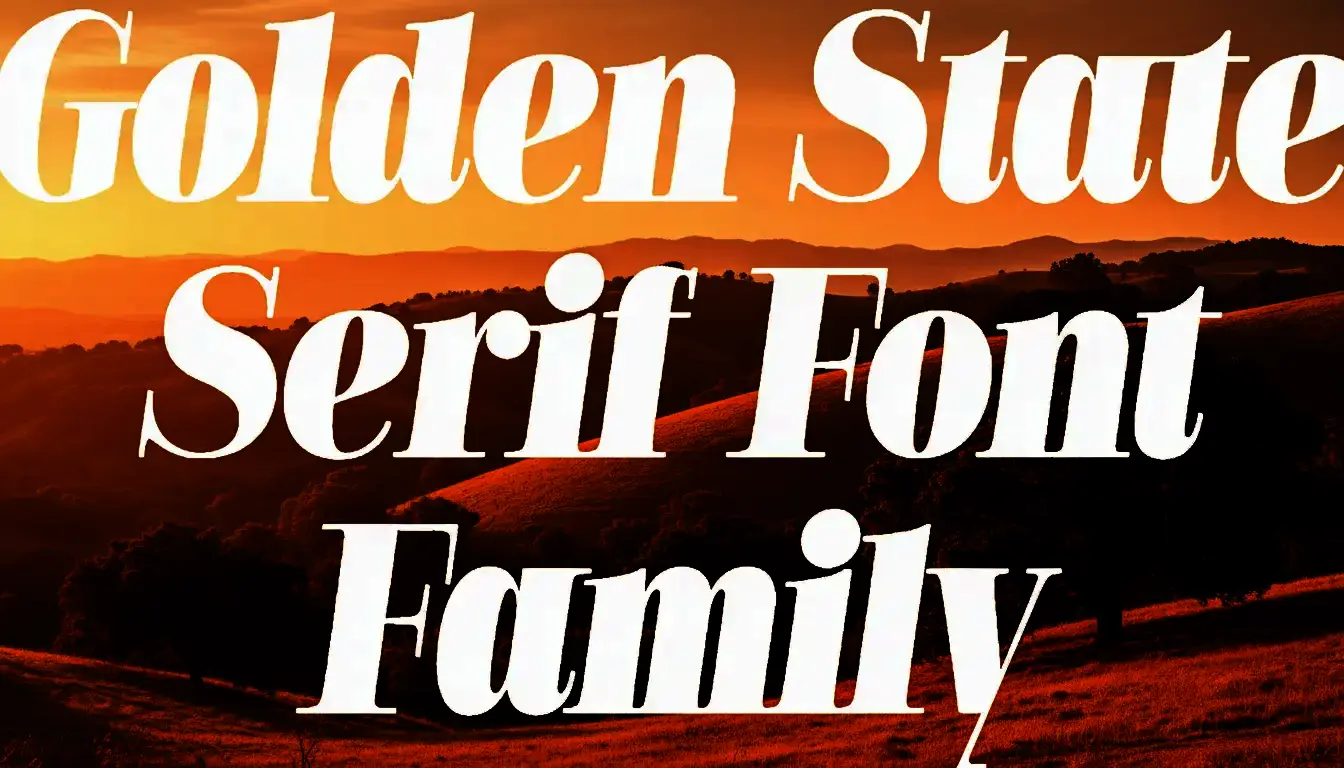
Golden State Serif Font Family
Golden State Serif is a sophisticated, highly customizable serif display and text font family designed by the renowned typographer Måns Grebäck and released through Mans Greback AB in June 2024. It is engineered to seamlessly blend old-world typographic elegance with modern digital fluidity.